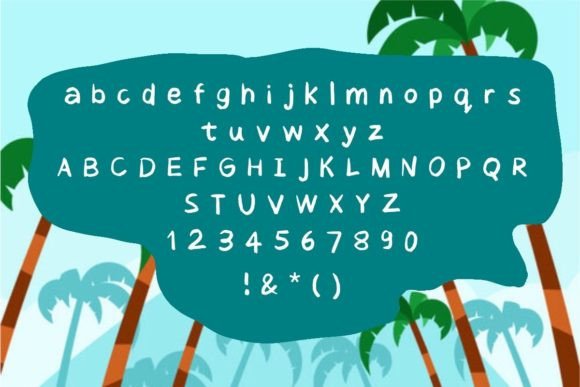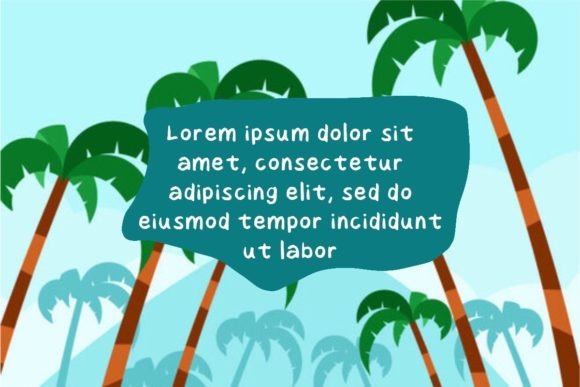
Introduction to Palm Tree Font
Have you ever found yourself stuck in a design rut, yearning for a font that embodies the essence of a tropical paradise? I know I have. It’s that moment when you’re working on a creative project, and you just can’t seem to find the right font to bring your vision to life. That’s where the Palm Tree Font comes in – a stunning display font designed to transport you to a world of sun-kissed beaches and swaying palm trees.
With its high-quality design and transparent background, this font is a game-changer for designers looking to add a touch of tropical flair to their work. Whether you’re creating eye-catching social media posts, beautiful stationary art, or gorgeous invitations, the Palm Tree Font is sure to make your designs stand out. And the best part? It’s available for free download, making it an invaluable resource for any creative project.
So why is the Palm Tree Font so valuable for designers? Not only does it offer a unique and refreshing alternative to more traditional fonts, but it’s also incredibly versatile – perfect for adding a touch of whimsy to your designs or creating a bold, eye-catching statement. With its free download and transparent background, it’s a design resource that’s sure to become a staple in your creative toolkit.
Key Features of Palm Tree Font
- High-quality, hand-drawn design ideal for creative projects, including invitations, posters, and social media graphics.
- Features a transparent background, making it easy to layer over any image or color.
- Comes in a single size, but is highly scalable, allowing for flexibility in design applications.
- Unique, whimsical style captures the essence of tropical destinations and is perfect for summer-themed projects.
Honest Review: Palm Tree Font
I recently had the chance to try out the Palm Tree Font, and I must say it’s been a great addition to my design resources. The font is free to download, which is a huge plus for designers on a budget. The high quality of the font is evident from the moment you open it up, with crisp, clean lines and a transparent background that makes it easy to use.
One of the things that stands out about the Palm Tree Font is its versatility. I’ve used it for a range of creative projects, from logos to social media graphics, and it always looks great. The font is highly customizable, making it easy to adjust the size, color, and style to fit your design needs.
- High quality and transparent background make it easy to use
- Highly customizable, making it easy to adjust to fit your design needs
- Works well for a range of creative projects, from logos to social media graphics
- May not be suitable for formal or professional designs due to its playful, tropical vibe
- Some users may find the font too large or too bold for certain designs
Overall, I’m really impressed with the Palm Tree Font. It’s a great addition to any designer’s toolkit, and I’ve already used it for several projects. If you’re looking for a high-quality, versatile font that’s easy to use, I’d definitely recommend checking it out.
To get the most out of the Palm Tree Font, use it on a transparent background to create a seamless design. You can also pair it with other design elements, such as palm tree graphics, to create a cohesive and high-quality design.
The Palm Tree Font is commonly used in designs for tropical destinations, such as Hawaii or the Caribbean. It’s also used in designs for summer-themed parties, outdoor events, and travel brochures. The Palm Tree Font is a versatile design resource that can be used in a variety of creative projects.
Does the Palm Tree Font have a transparent background?
Yes, the Palm Tree Font has a transparent background, making it easy to use as a design element in your creative project. The transparent background also allows you to layer the font over other design elements or images without any visual distractions.